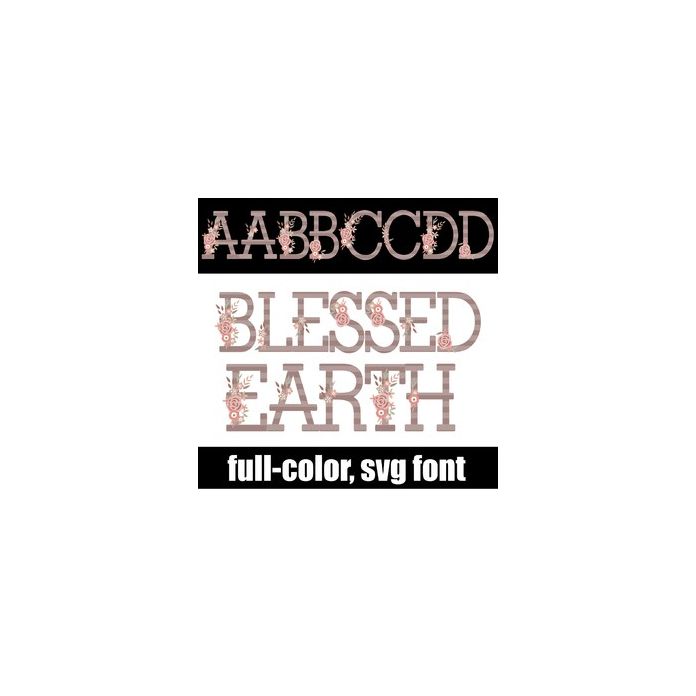
This full-color font features earthy striped lettering with neutral florals. There is an alt case with red lettering that you can access through your system or Silhouette's glyph map.